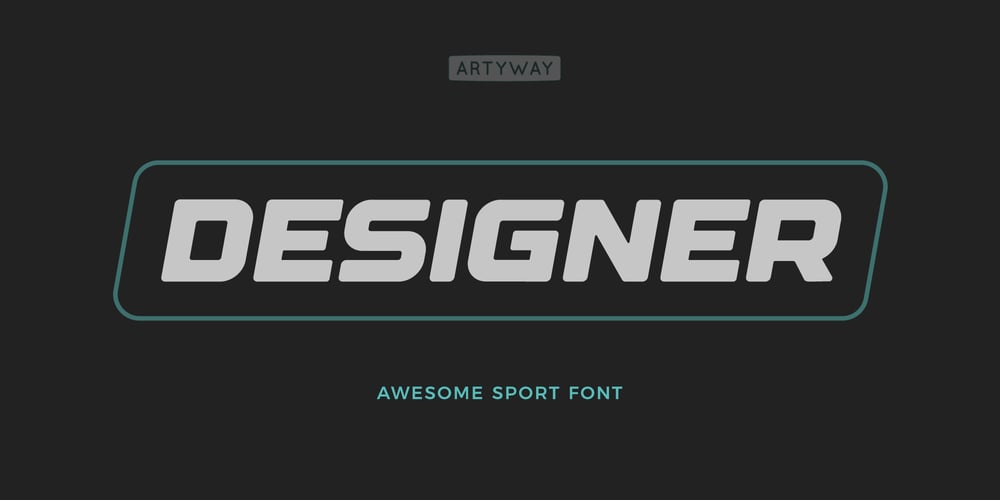
Designer Font Family was designed by Yehor Lisnyi and published by Artyway. Designer contains 1 styles and family package options. I suggest you to pay attention to the “Design” font.It’s bold, with softened corners and some slope for dynamic effect. “Design” font has a unique charm and easy visual readability, so it’s perfect for headlines, whether for sports events, automotive posters, logo or monograms designs.